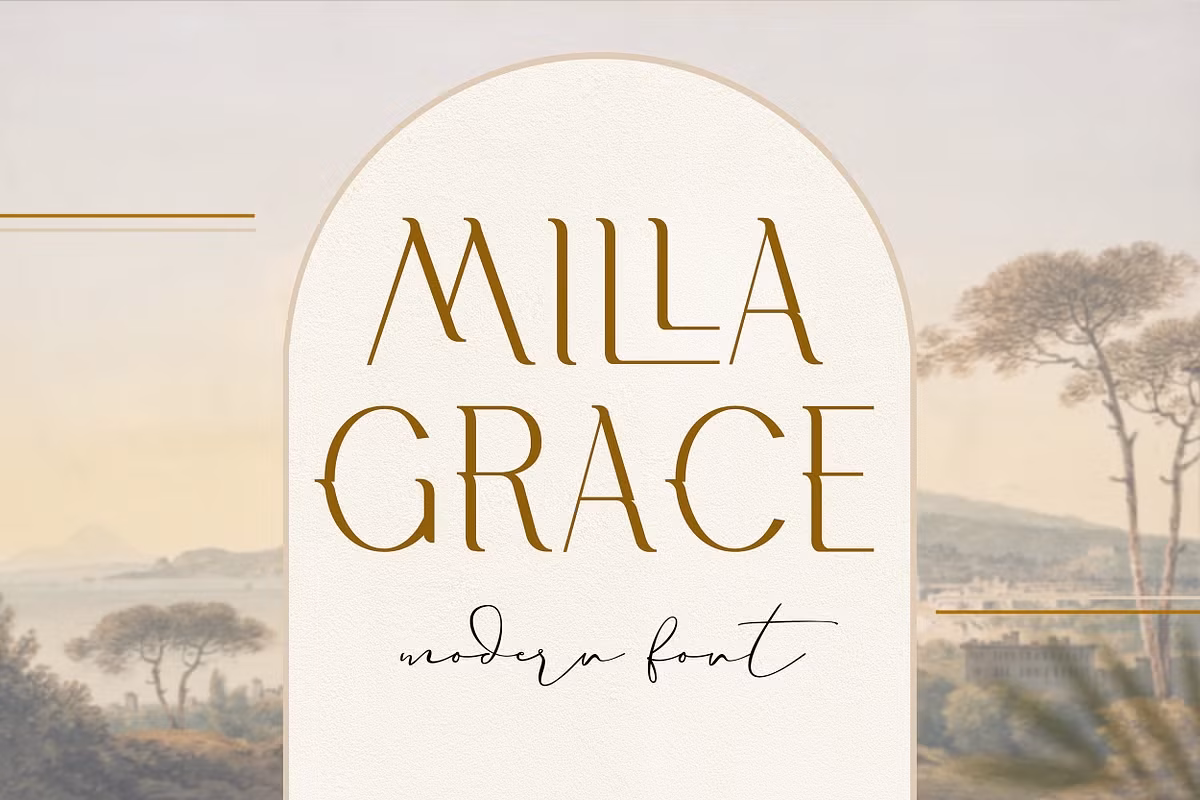
Milla Grace. Modern Classic Font Free Download
Milla Grace Modern Classic Font Free Download
Milla Grace Modern Classic Font Free Download is a refined and stylish typeface that seamlessly blends modern sophistication with timeless classic elements. Designed with elegance in mind, this font is ideal for upscale branding, editorial layouts, fashion-related designs, and luxurious packaging. Its high-contrast strokes and graceful curves make it stand out in both print and digital media.
This font exudes confidence and beauty, offering a full character set that supports diverse creative needs. From magazine headlines to wedding stationery, Milla Grace adds a polished and classy touch to every project it graces.